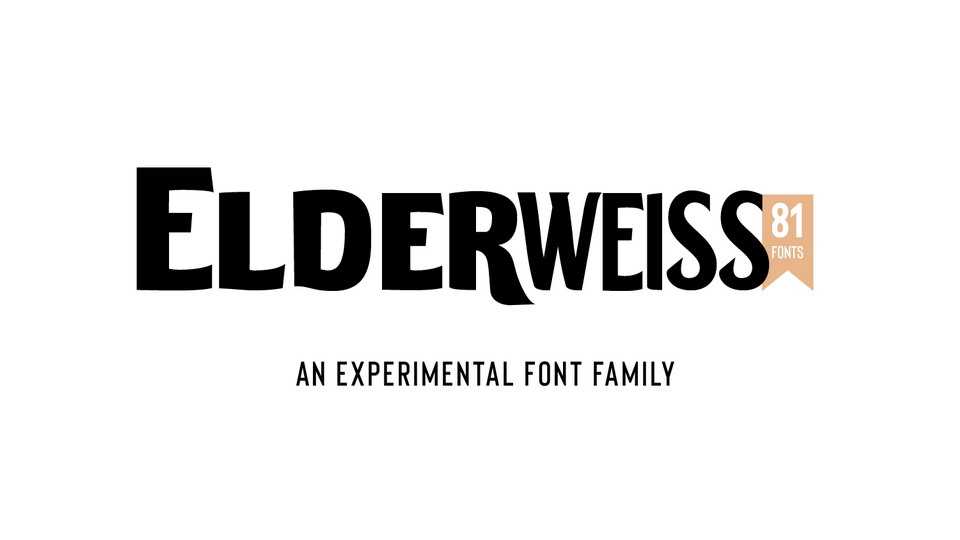
Download Elderweiss font, an experimental sans with unique style to create stunning brand asset and website. Great for using it for masculine or strong feminine branding projects, or for creating bold, eye-catching posters and print.
Designer: Guiltype Studio